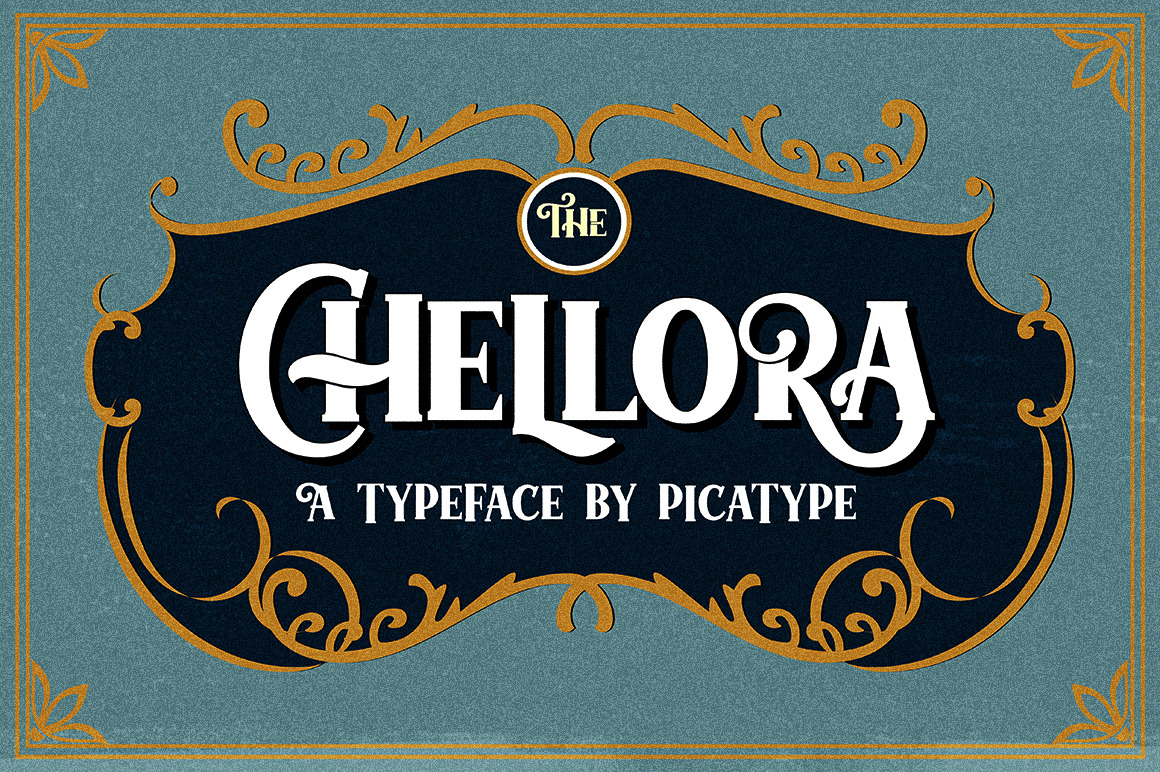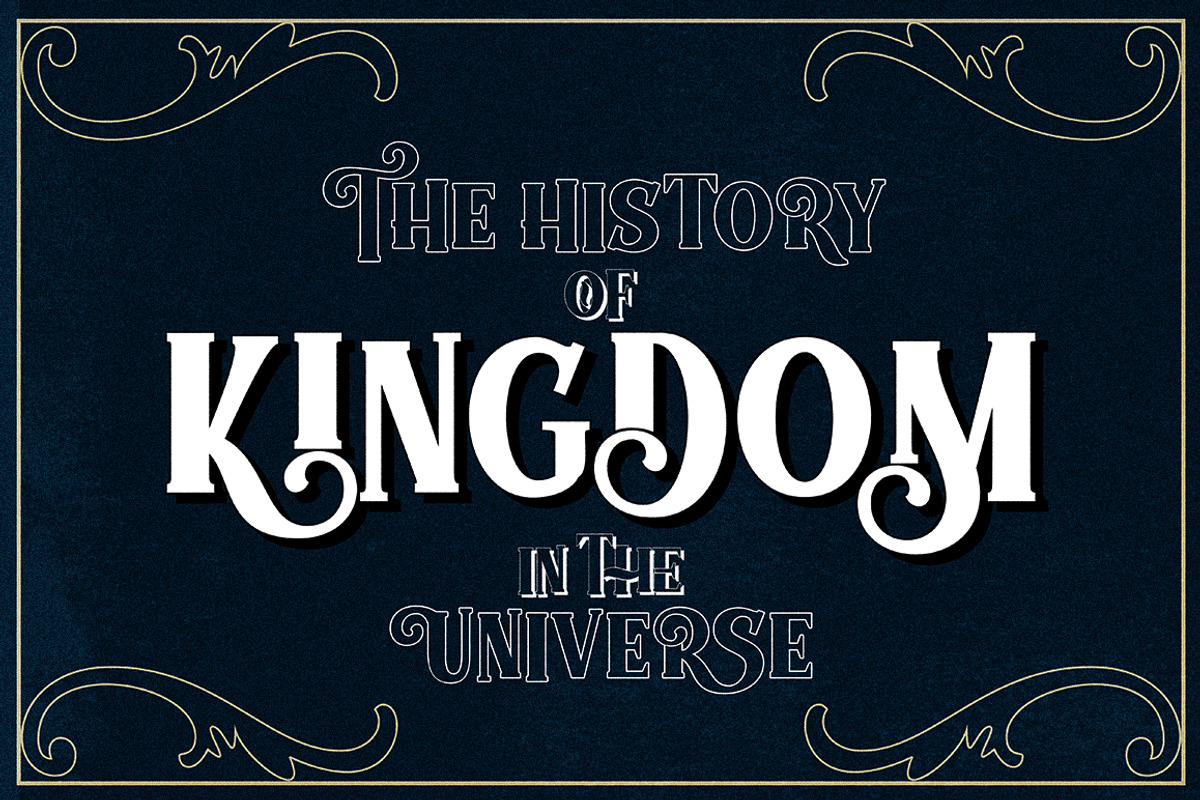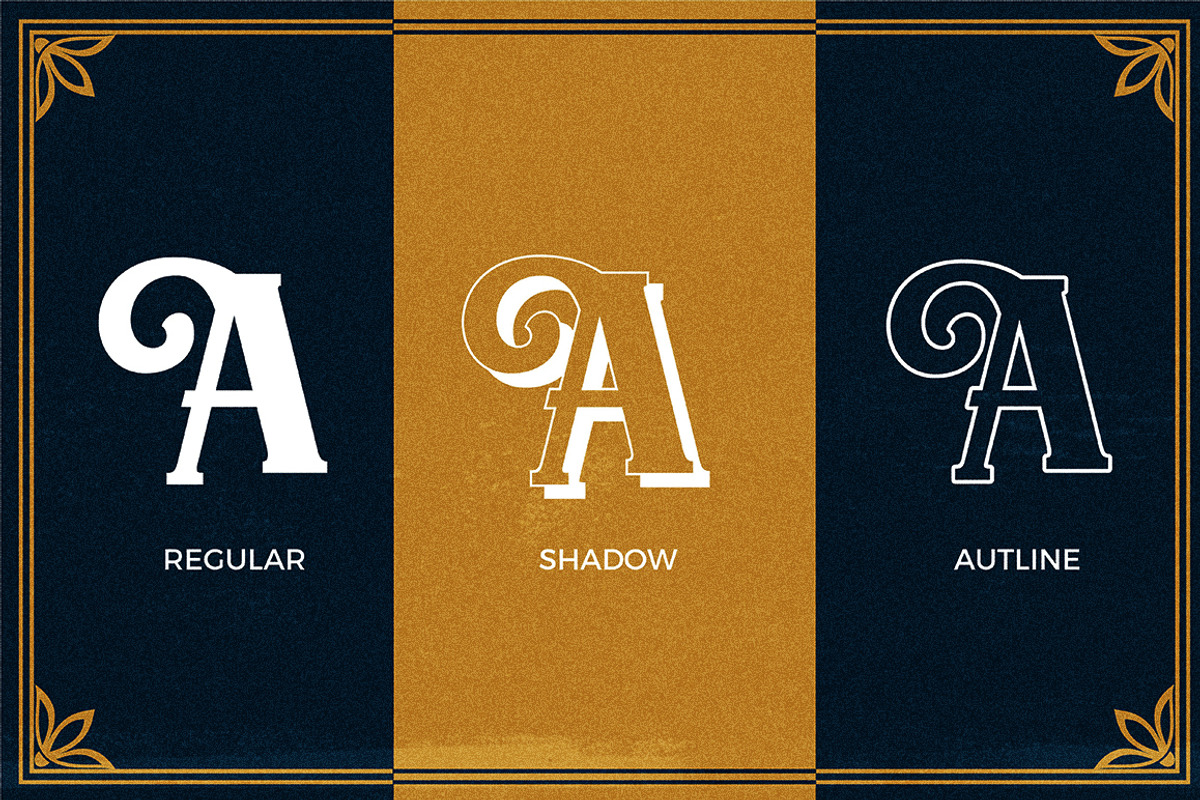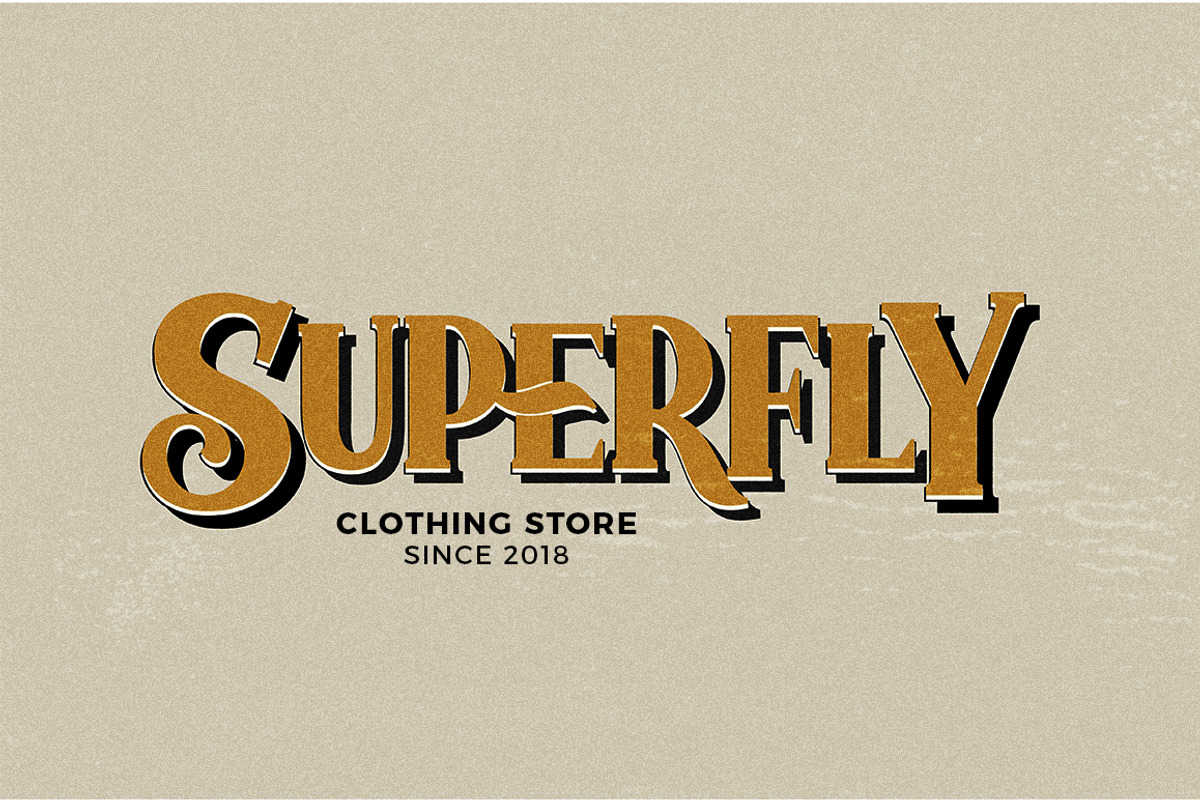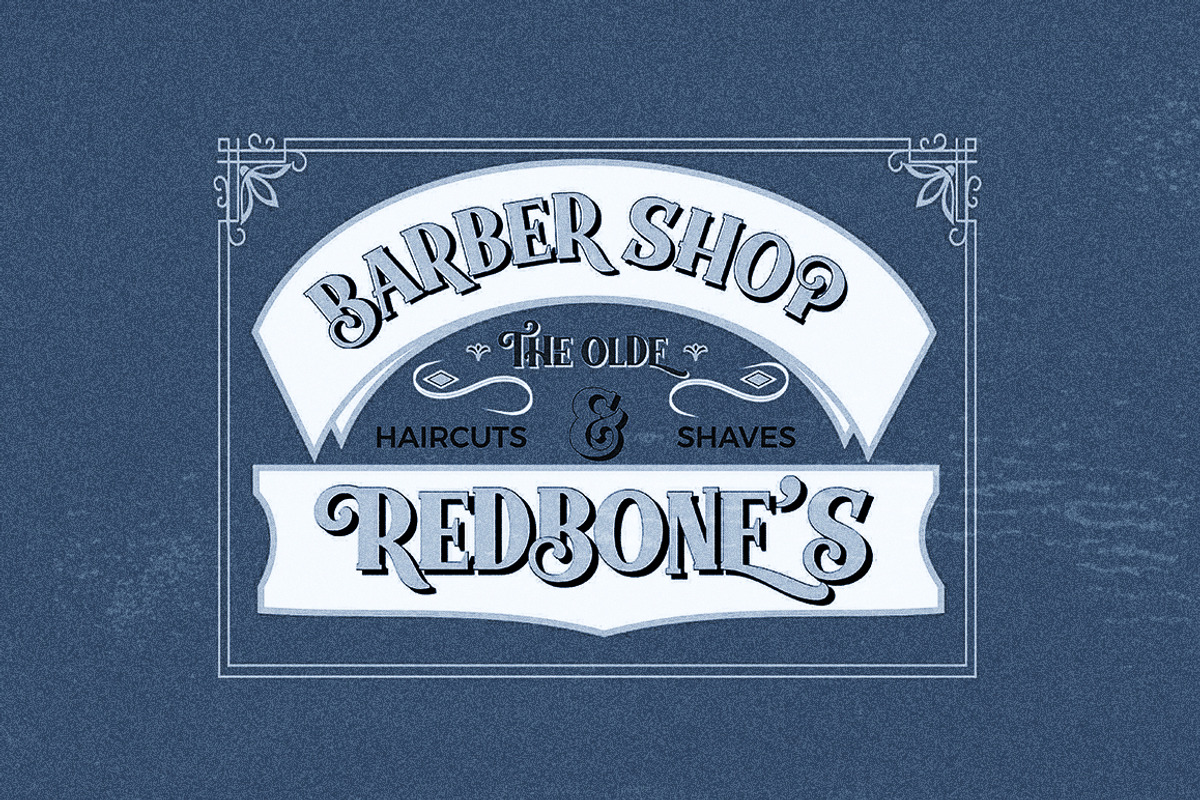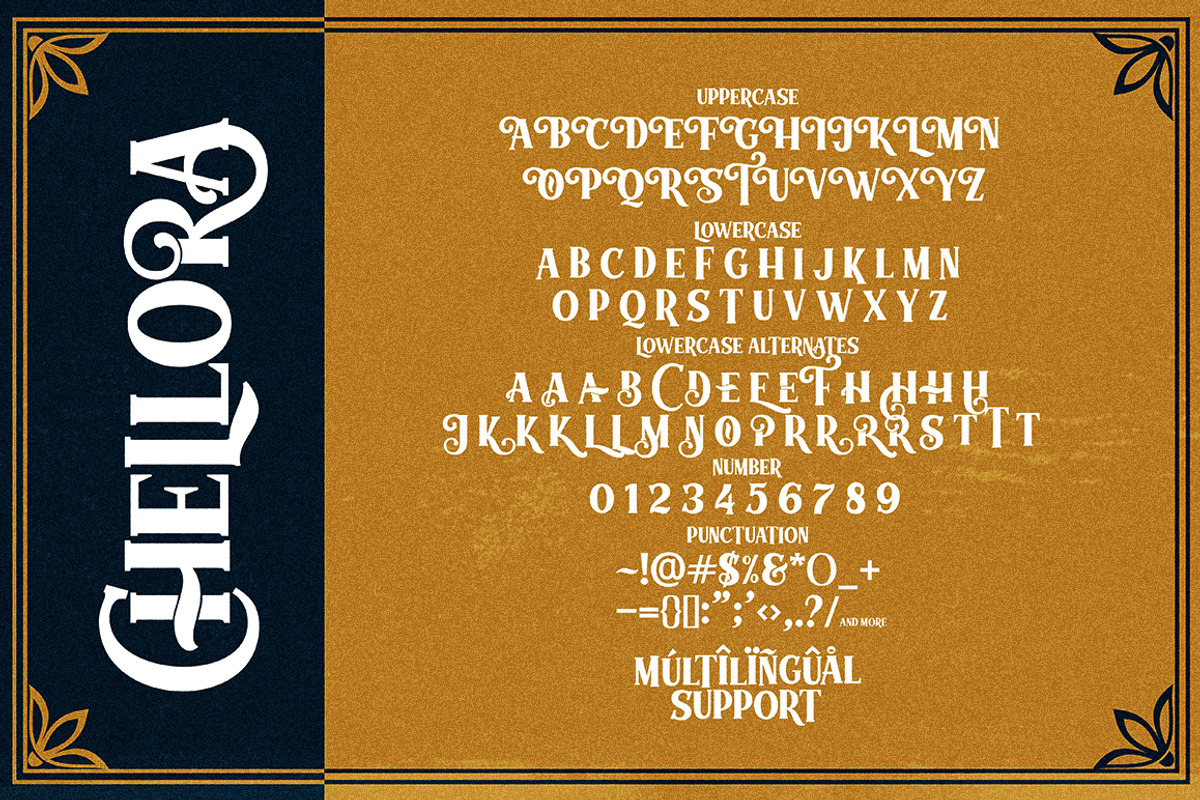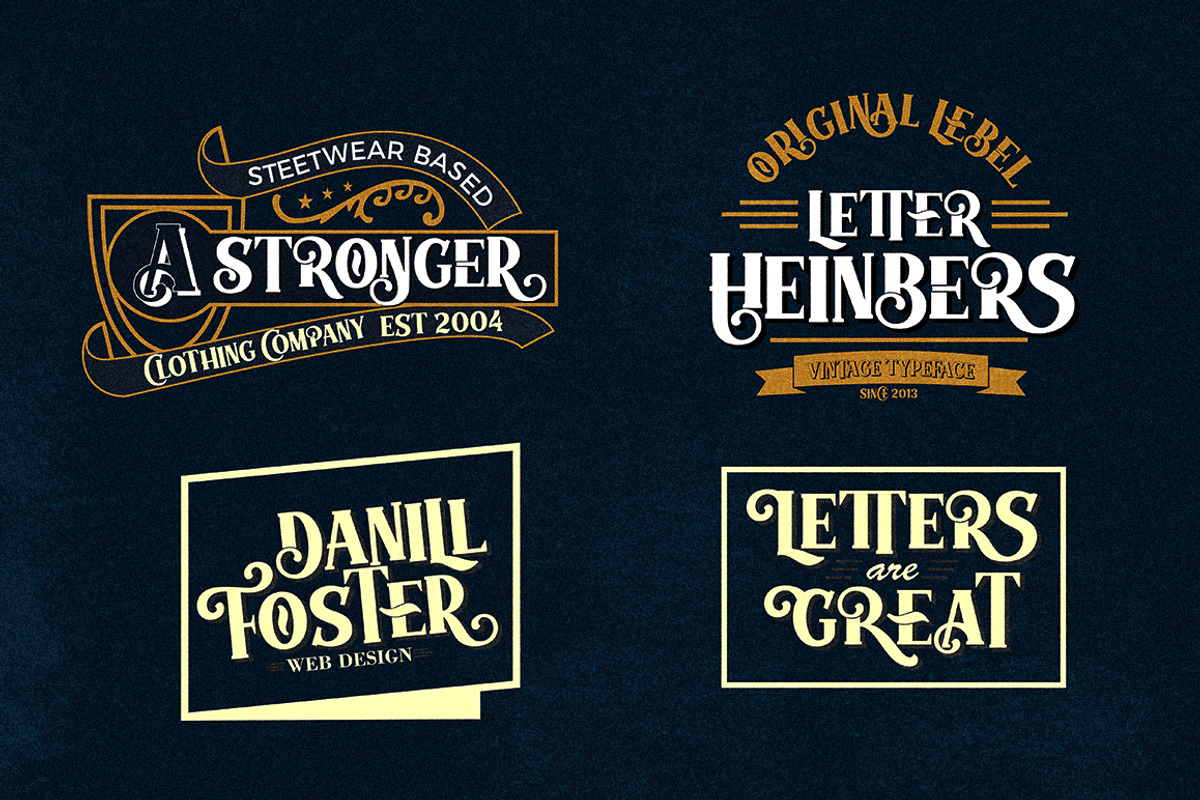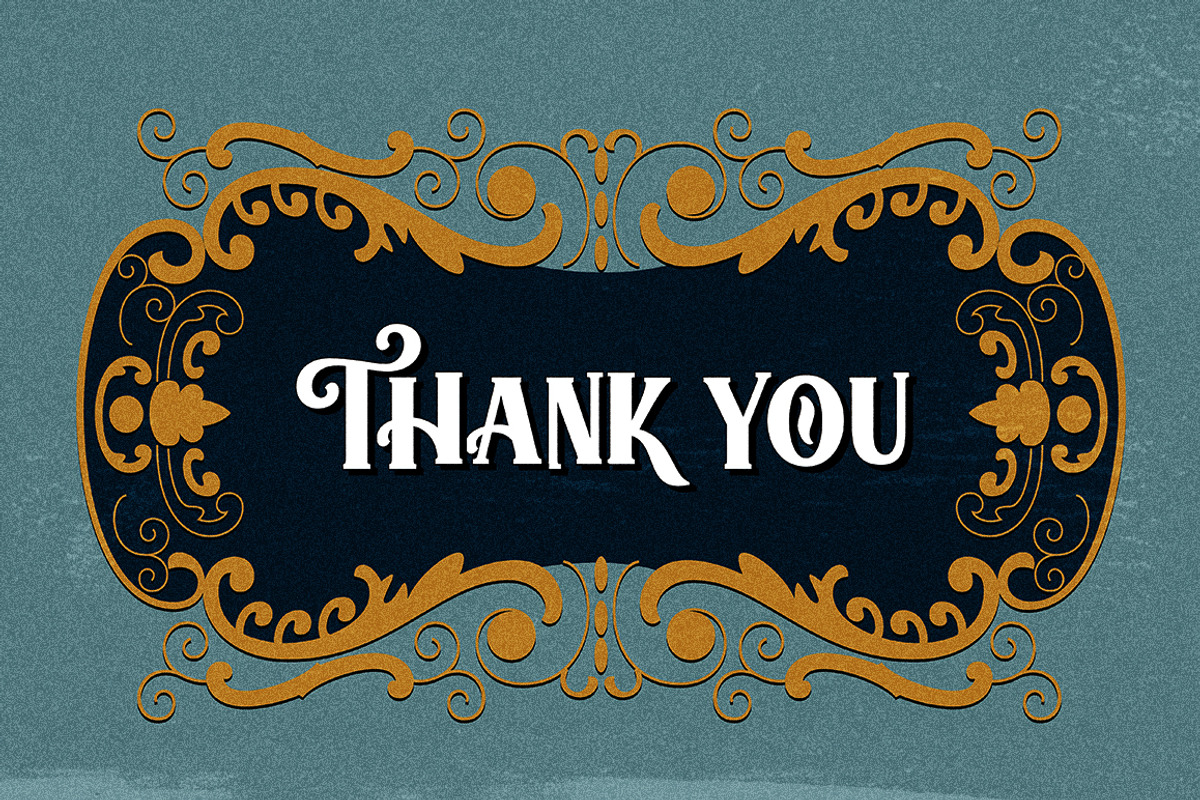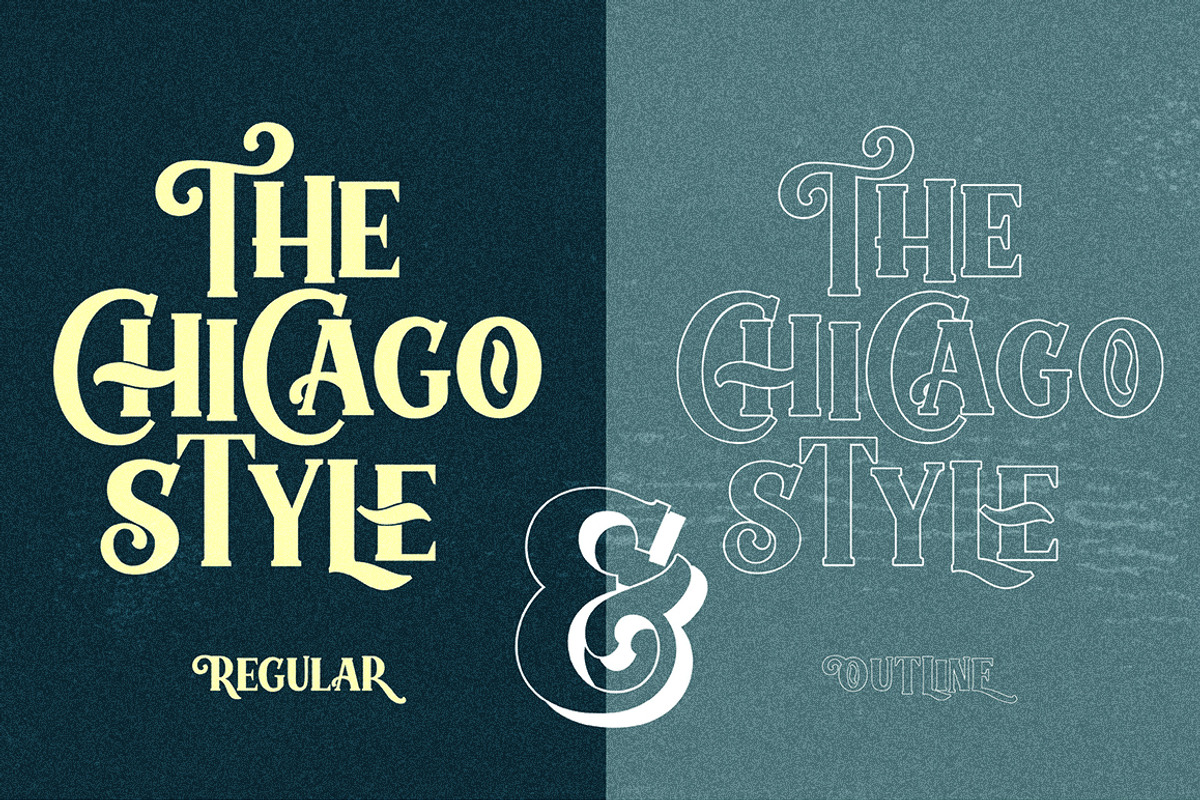
Chellora Typeface
I am very happy to finally release Chellora Typeface. Chellora is the Bevelled Typeface which gives Simple effect letters. The effect allows it to be plated, giving a smoother and smoother appearance. Chellora comes with 3 different choices: Regular, Shadow, Filled Outline, Chellora is a bold Sans Serif that is perfect for Logos, Signage, Apparel, Headlines, Etc.
This typeface is a great addition to any collection because it saves time with post-production effects, this allows you to easily measure effects.